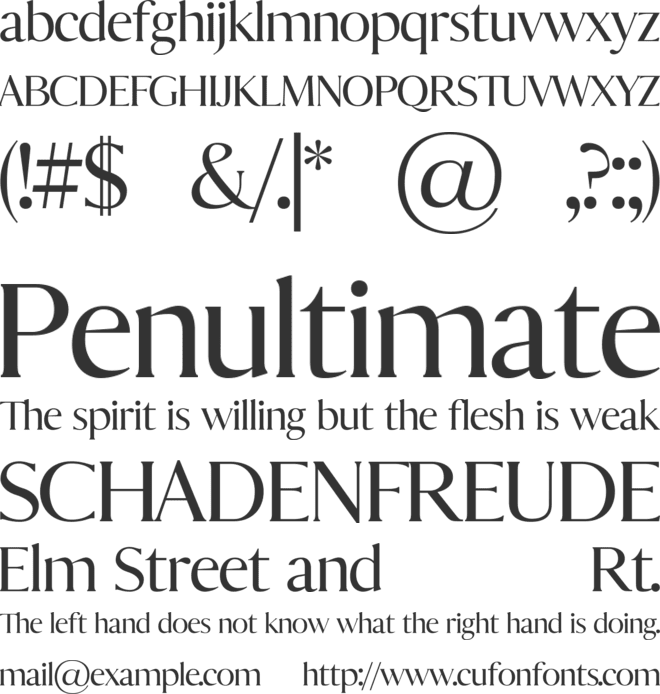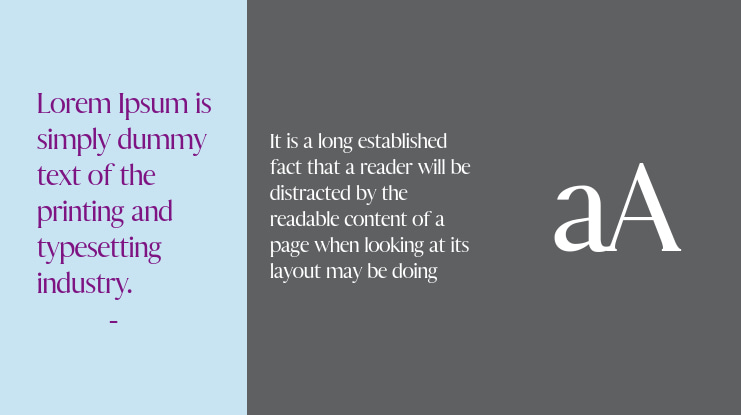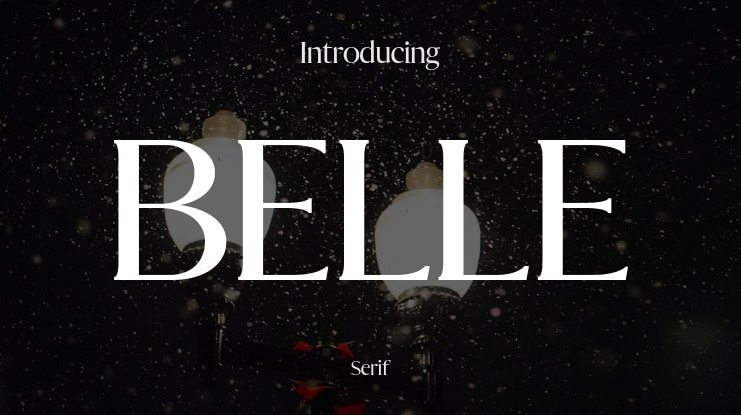
BELLE Font Family
Belle is a luxurious serif with graceful curves and multilingual support—perfect for high-end branding, editorial elegance, and refined packaging.